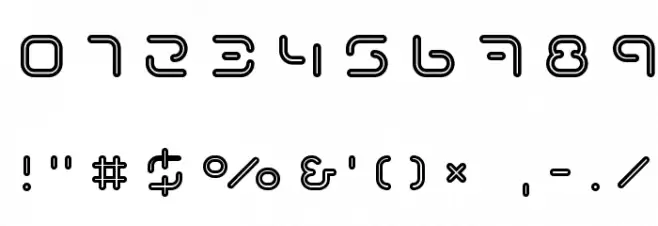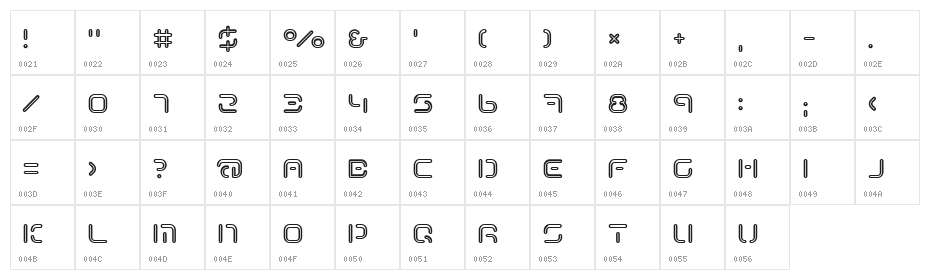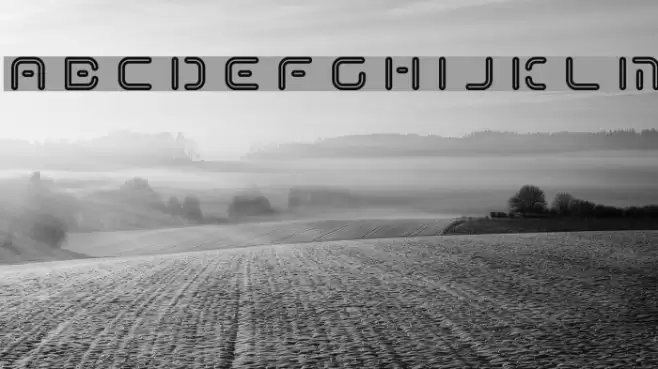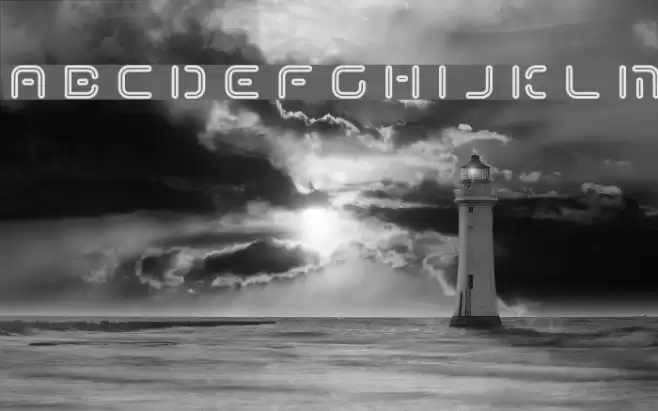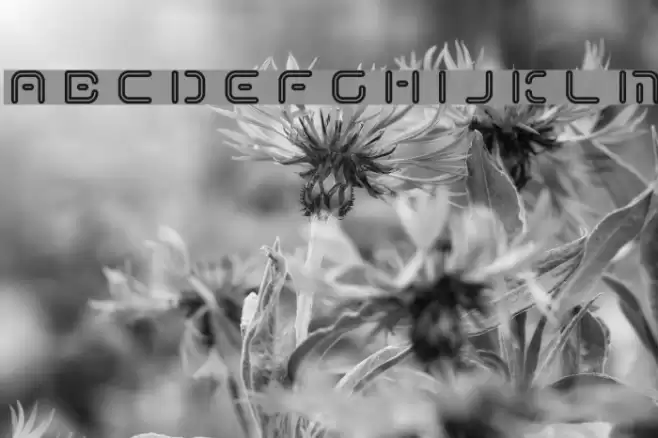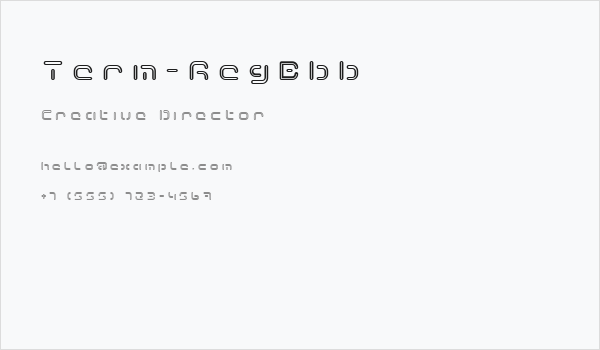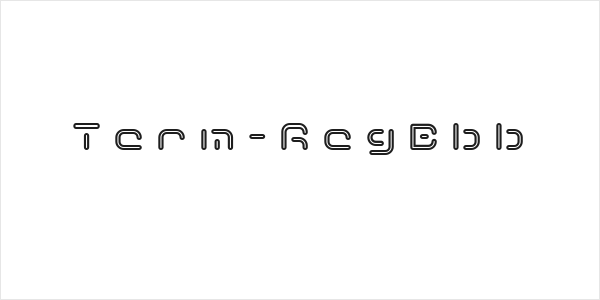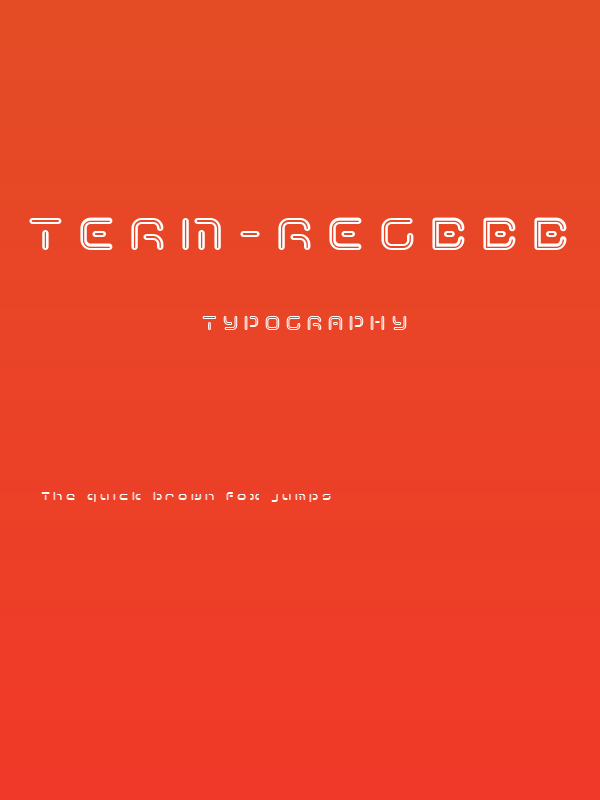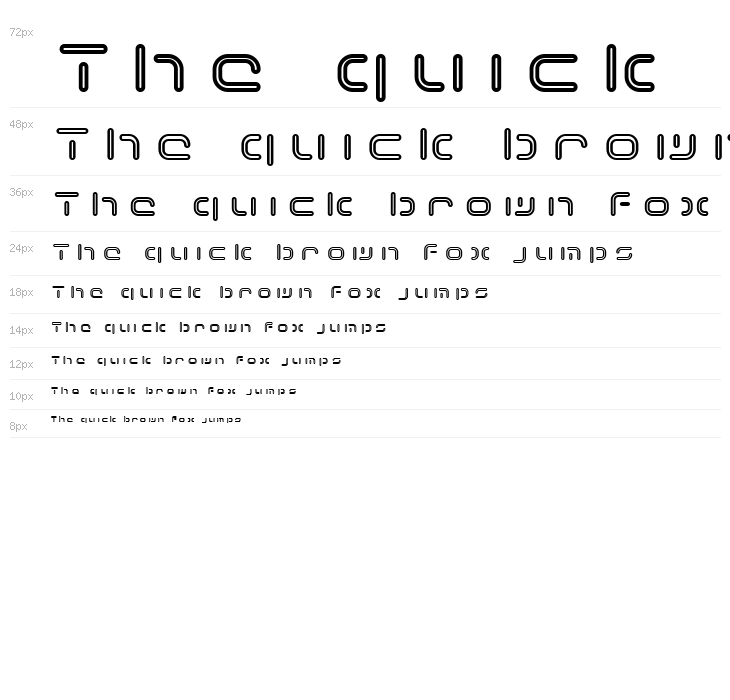
Term-RegBbb Font
Term-RegBbb Description
This font features a futuristic and geometric design with a hollow, outline style that gives it a unique and modern appearance. The characters are constructed with consistent line thickness, creating a uniform and balanced look. The rounded edges and open spaces within each letterform contribute to its sleek and contemporary feel. This font is highly legible, despite its decorative nature, and maintains a consistent structure across uppercase, lowercase, numerals, and special characters. The overall design is minimalistic yet striking, making it suitable for various creative applications.
| Proposed Projects | Ideal for tech-related branding, sci-fi themed projects, modern posters, and digital interfaces. |